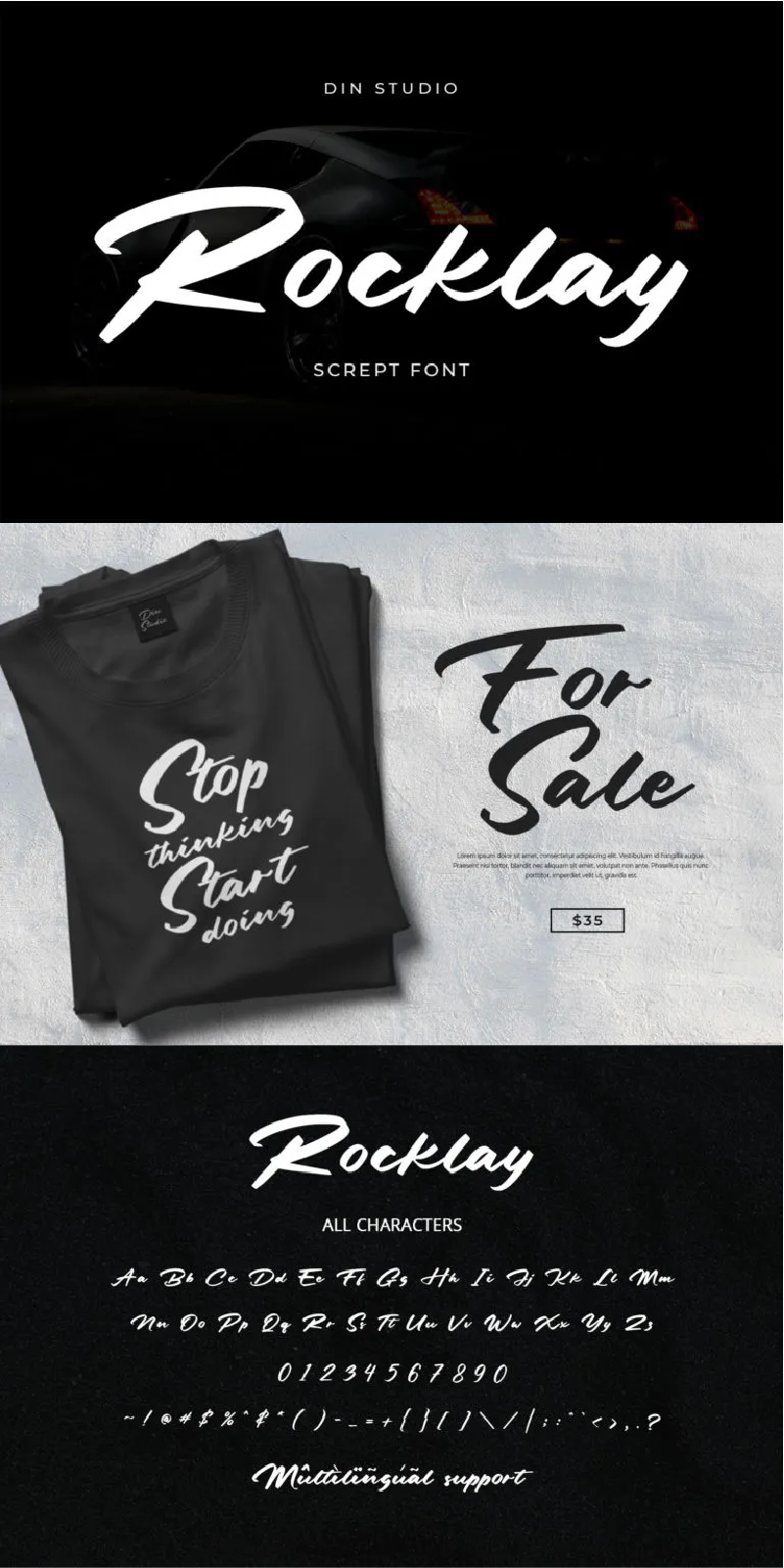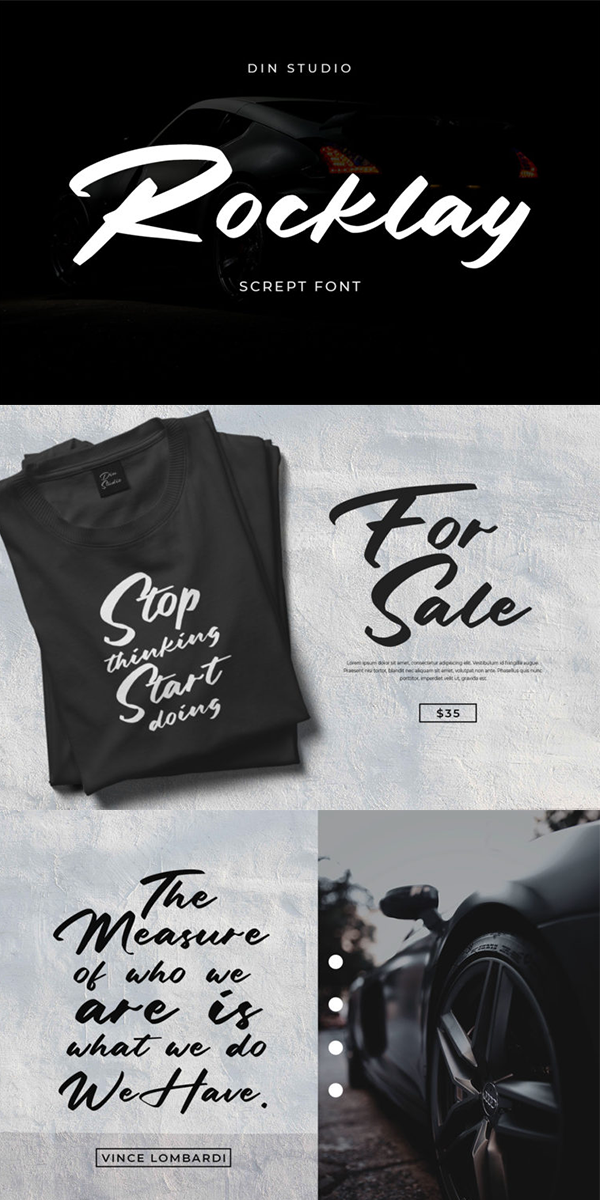
Rocklay Font
About Rocklay
Rocklay is a bold script font. With a classy and natural style, it brings beautiful typeface. Rocklay is best used for branding, logotype, and quotes. See the previews above to get some inspiration on how you can use them. Happy Designing!